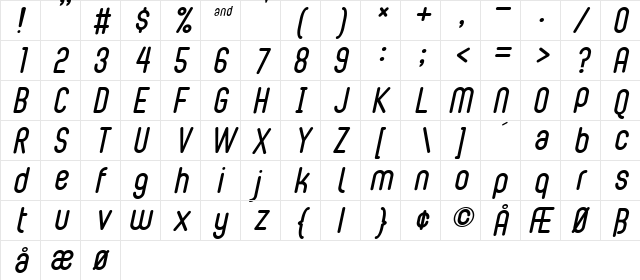
BubbleBoy2 Regular
Design Context for BubbleBoy2 Typeface
BubbleBoy2 trades formality for fun, with bouncy, characterful letterforms that bring warmth and energy to any project.
Font Pairing: Pairs well with a rounded or humanist sans for body copy, maintaining the friendly tone without relying on BubbleBoy2 to carry extended reading.
Pro Tip: Avoid using BubbleBoy2 for long passages of text — it works best for headlines, labels, and short calls to action.